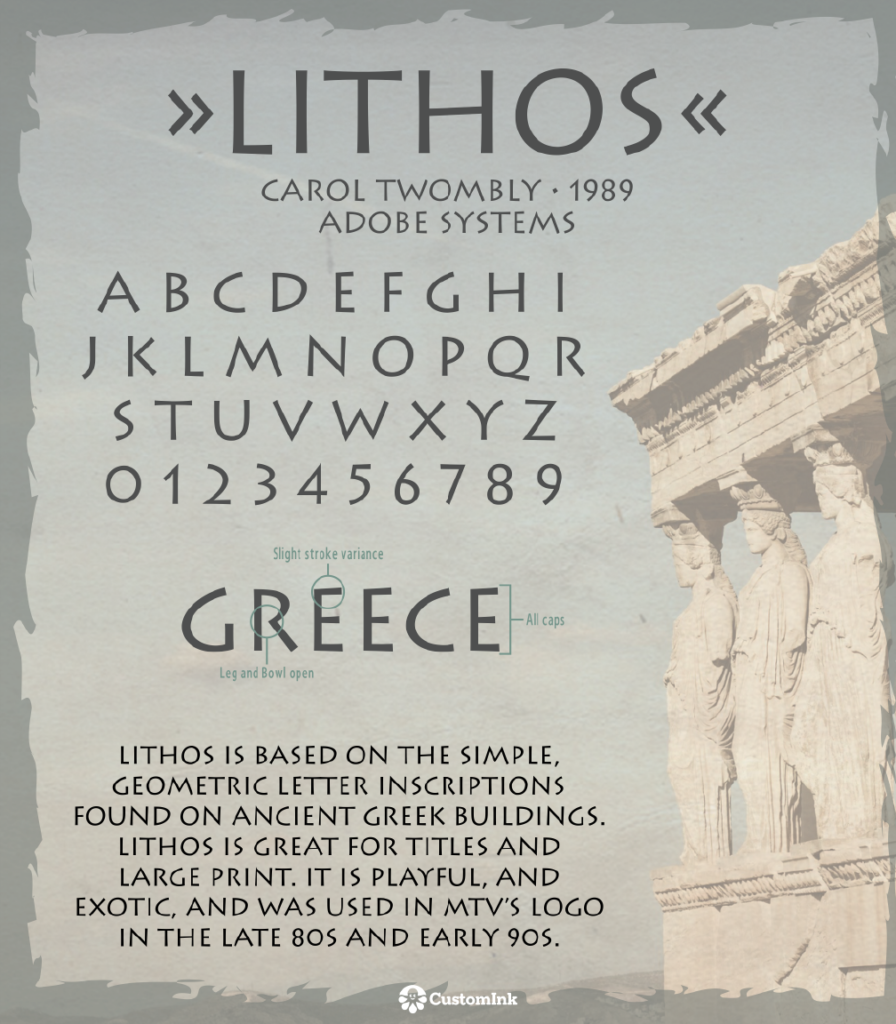
Font of the Week – Lithos
Lithos - FOTW
Lithos was created for the Adobe platform in 1989 by American artist and calligrapher Carol Twombly. Lithos was born of the desire to mimic the geometric lettering seen in the inscriptions of ancient Greek buildings. Twombly didn’t intend to replicate the Greek style exactly, and instead included bold weights, which were never seen in historic Greece. The style of all capital letters was intended for titles only—never body text. This playful and exotic font is recognizable for it’s use in MTV’s logo in the late 80s and early 90s.